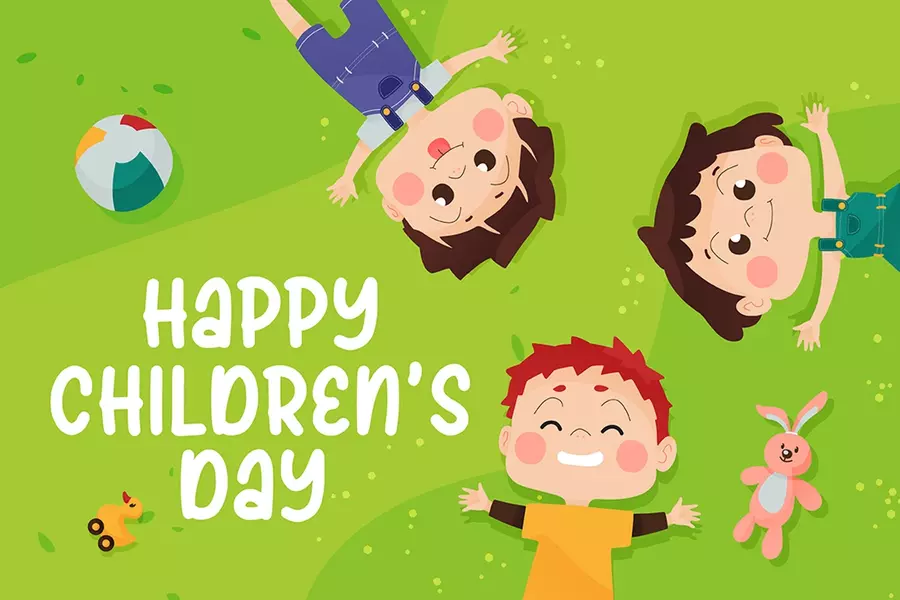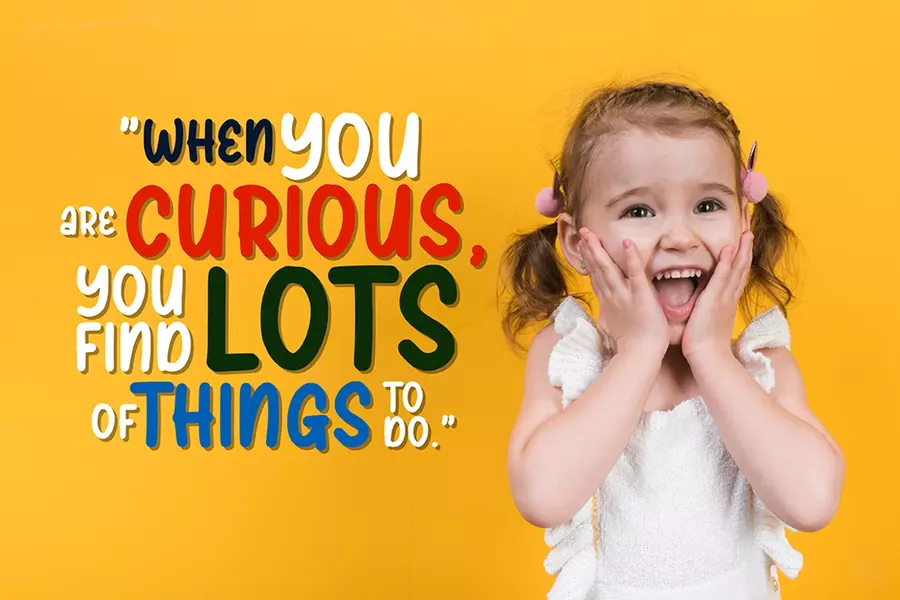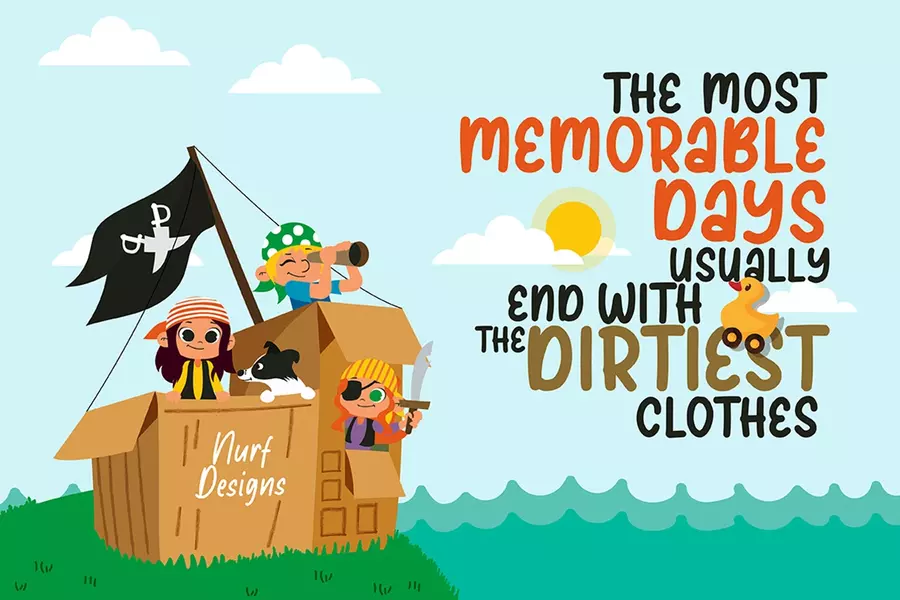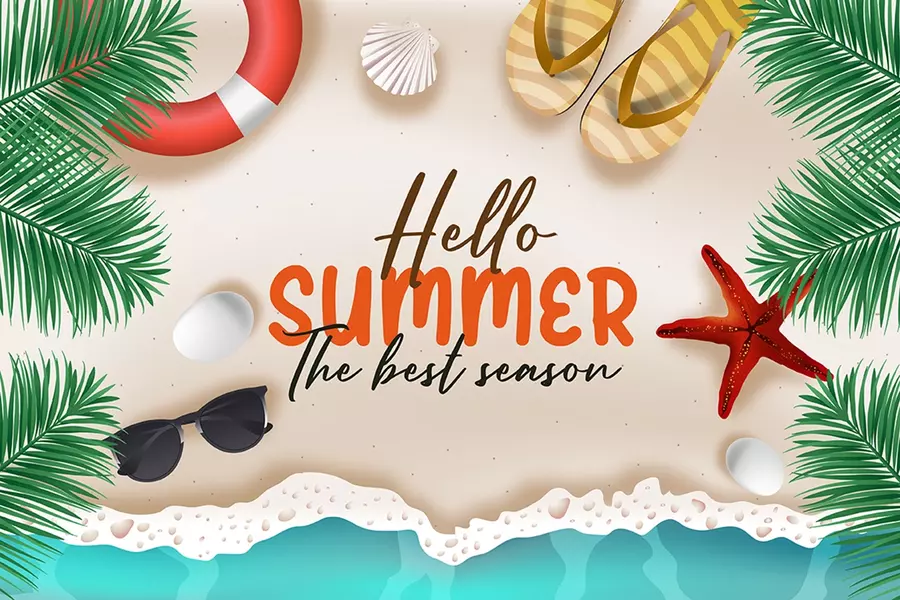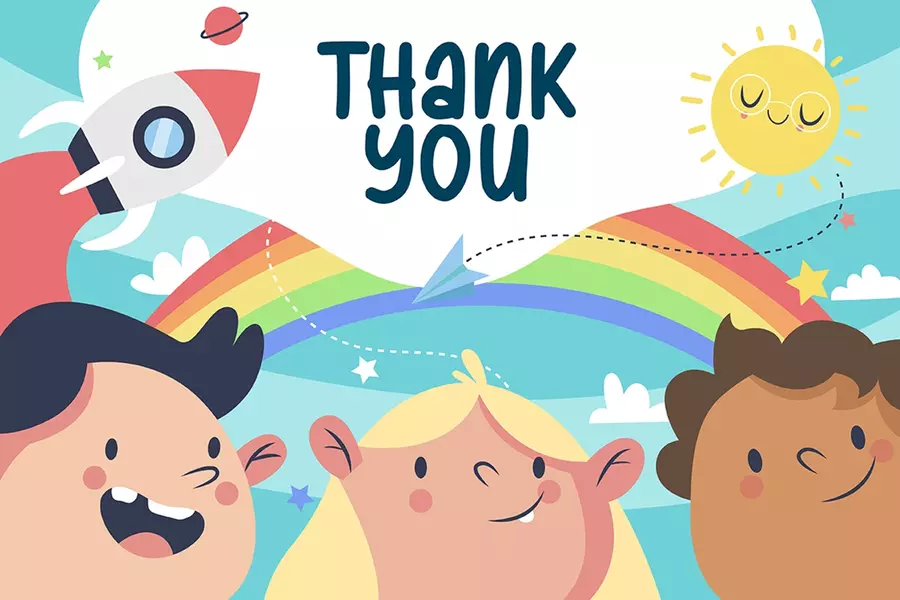
Brickhand – Cute and Fun Display Font
Brickhand is a cute and fun display font. It has a cheerful style that will elevate your projects to the highest level. Get creative with its childlike playfulness, and use it to brighten up any kids and school project!